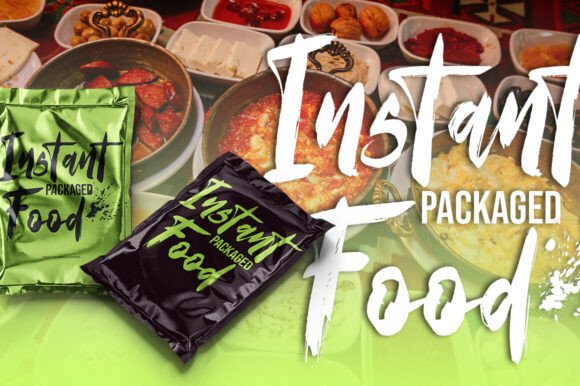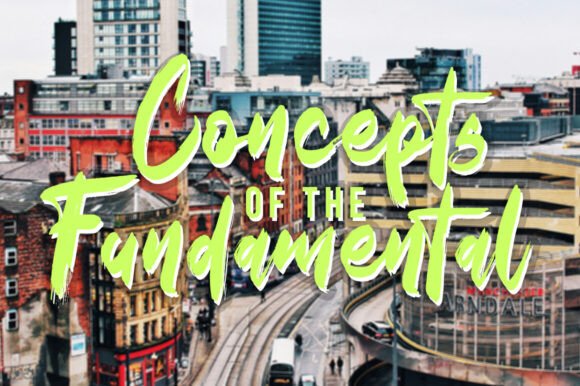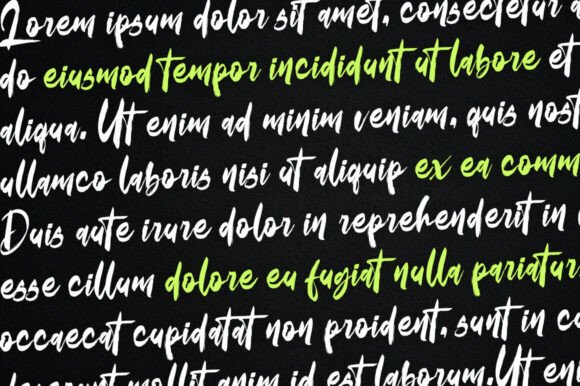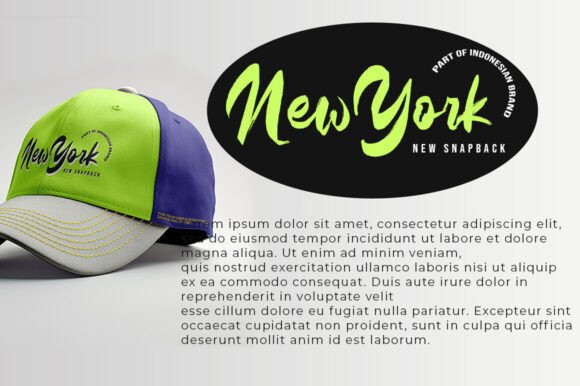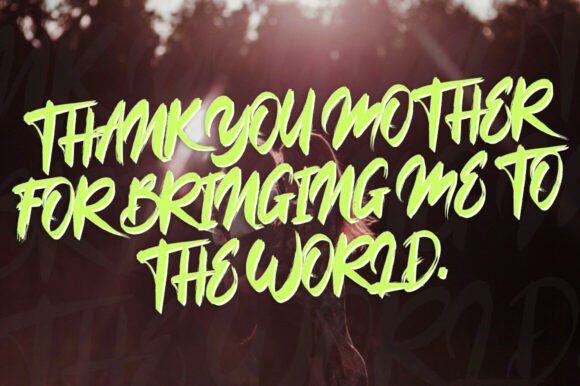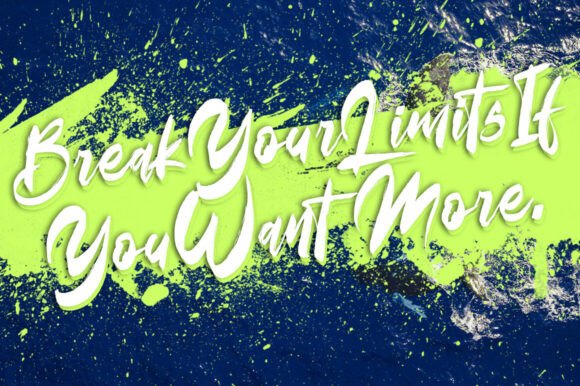
Unleash Your Creativity with Blacknight Font: The Ultimate Bold and Expressive Brushed Lettering Font
In the world of typography, fonts play a crucial role in conveying the tone and personality of a brand or design. For designers and crafters looking to make a statement, Blacknight Font is an exceptional choice. This bold and expressive brushed lettering font is designed to capture attention and exude an energetic, urban, and confident vibe.
The Distinctive Features of Blacknight Font
Blacknight Font boasts hand-drawn brush strokes that give it a unique, organic feel. The thick, uneven strokes not only add character but also retain strong legibility, making it perfect for a variety of applications. The font’s design is inspired by street art and urban aesthetics, evident in its dynamic and raw personality.
The Power of Neon Green: Elevating the Font’s Appeal
The bright neon green color used in the main text of Blacknight Font elevates its modern, edgy, and attention-grabbing appeal. This vibrant hue is synonymous with energy, excitement, and playfulness, making the font ideal for designs that require a bold and standout presence. Whether you’re working on streetwear branding, music event posters, creative campaigns, or social media content, Blacknight Font is sure to turn heads.
Adding a Touch of Grunge: The Paint Splatter Element
One of the distinctive features of Blacknight Font is the paint splatter element that adds a touch of grunge and street art. This element reinforces the free-spirited and non-traditional character of the font, making it perfect for designers who want to push boundaries and challenge conventional design norms.
Blacknight Font is a versatile font that can be used across various design projects. Its bold and expressive nature makes it an excellent choice for:
- Streetwear branding: Create bold and eye-catching logos that reflect the urban and edgy vibe of your brand.
- Music event posters: Add a dynamic and energetic touch to your posters with Blacknight Font.
- Creative campaigns: Use Blacknight Font to create attention-grabbing headlines and messaging that resonate with your target audience.
- Social media content: Elevate your social media content with a bold and expressive font that demands attention.
Why Choose Blacknight Font?
Blacknight Font offers a unique combination of bold and expressive design elements that set it apart from other fonts. Here are some reasons why designers and crafters should consider Blacknight Font for their next project:
- Unique and original design: Blacknight Font features hand-drawn brush strokes that give it a distinctive and organic feel.
- High legibility: Despite its bold and expressive nature, Blacknight Font retains strong legibility, making it easy to read.
- Versatility: Blacknight Font can be used across various design projects, from streetwear branding to social media content.
- Attention-grabbing: The bright neon green color and paint splatter element make Blacknight Font a perfect choice for designs that require a bold and standout presence.
Blacknight Font is an exceptional bold and expressive brushed lettering font that is sure to elevate your designs. Its unique combination of hand-drawn brush strokes, bright neon green color, and paint splatter element make it perfect for designers and crafters looking to make a statement. Whether you’re working on streetwear branding, music event posters, creative campaigns, or social media content, Blacknight Font is an excellent choice. So why settle for ordinary fonts when you can unleash your creativity with Blacknight Font?